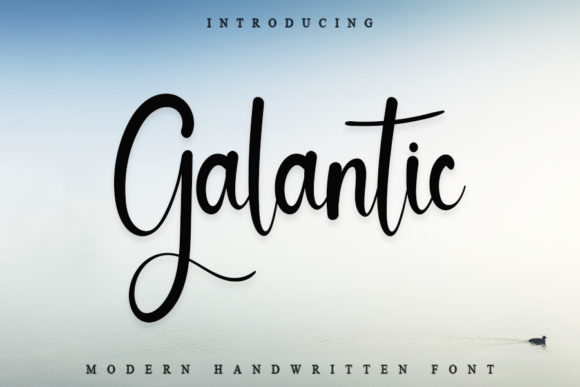
Galantic Font
Embrace the Timeless Allure of Galantic: A Script Font Steeped in Elegance and Charm
In the realm of typography, few script fonts possess the timeless allure and captivating charm of Galantic. A creation of the renowned K_IN Studio, Galantic is a handwritten font meticulously crafted to become a cherished favorite among discerning designers and typography enthusiasts.
Galantic effortlessly exudes sophistication and grace, making it an ideal choice for a wide spectrum of design projects. Its meticulously crafted characters showcase the beauty of traditional calligraphy while maintaining a contemporary and refreshing aesthetic. Whether you seek to design elegant wedding invitations, heartfelt greeting cards, or eye-catching social media graphics, Galantic will elevate your creations with its inherent charm and elegance.
Experience the Unparalleled Versatility of Galantic: A Font that Adapts Seamlessly to Diverse Design Needs
Galantic's versatility extends far beyond its timeless appeal. This versatile font effortlessly adapts to a multitude of design projects, making it an indispensable tool for creative professionals. Unleash your imagination and explore the endless possibilities Galantic offers, from crafting captivating logos and branding materials to designing stylish posters and flyers. Its inherent flexibility allows it to seamlessly blend with various design styles, ensuring your projects radiate a cohesive and visually striking aesthetic.
Discover the Emotional Resonance of Galantic: A Font that Evokes Profound Sentiments and Connections
Galantic possesses an uncanny ability to evoke profound sentiments and establish meaningful connections with your audience. Its graceful curves and elegant flourishes exude a sense of warmth and genuine care, making it the perfect choice for projects that aim to touch hearts and leave lasting impressions. Whether you're designing wedding invitations that capture the essence of eternal love, heartfelt greeting cards that convey deep emotions, or inspiring quotes that resonate with your audience, Galantic will infuse your designs with an emotional depth that captivates and engages.
Unlock the Creative Potential of Galantic: A Font that Empowers Designers to Craft Unforgettable Experiences
With Galantic as your creative companion, unleash your boundless creativity and craft unforgettable experiences for your audience. This remarkable font empowers designers to transcend the ordinary and create designs that captivate and inspire. Its versatility and emotional resonance make it the ideal choice for designers who seek to make a lasting impact and leave an enduring legacy of exceptional design work.